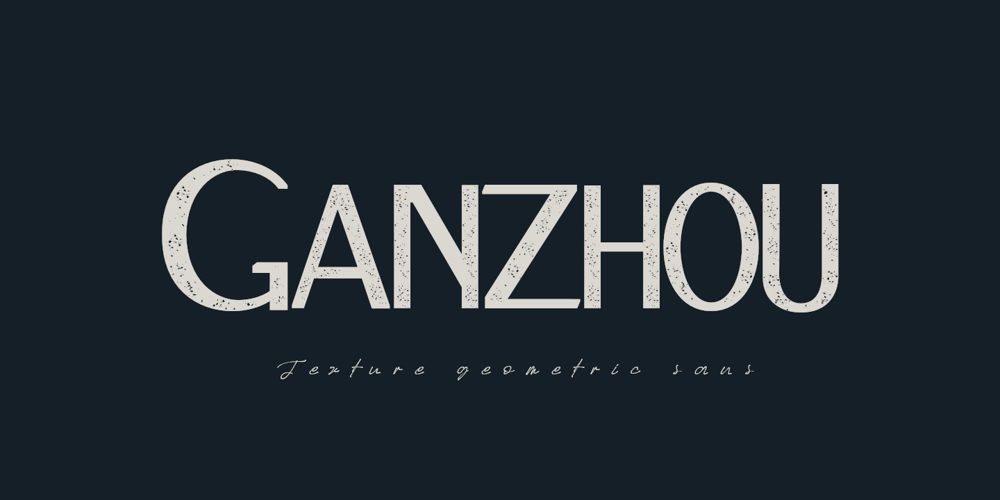
Ganzhou
Ganzhou font
Ganzhou Font Family was designed by Syukur Setiyadi and published by SSI.Scraps. Ganzhou contains 1 styles and family package options. Ganzhou is a great geometric sans with texture font with a natural stamp texture. This font is the perfect fit for all of your logos, branding, social media, and many othersThank You scrapstype